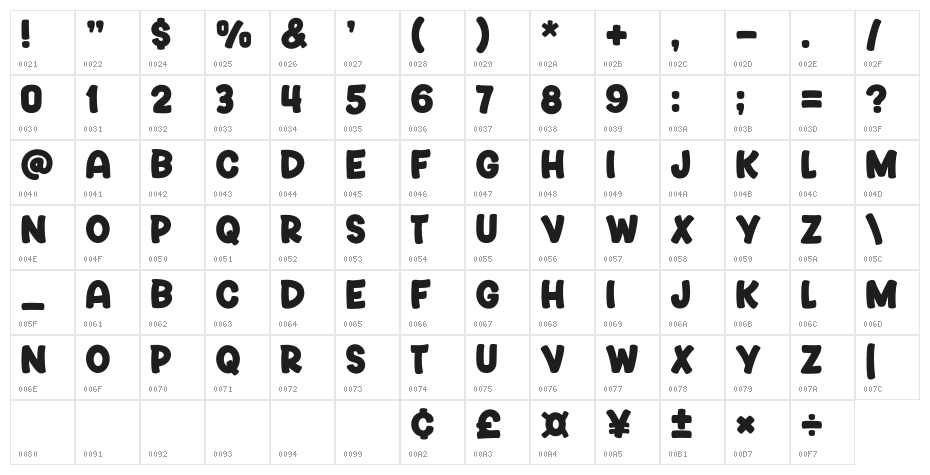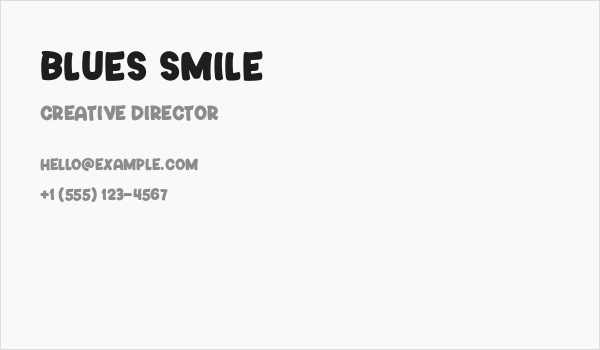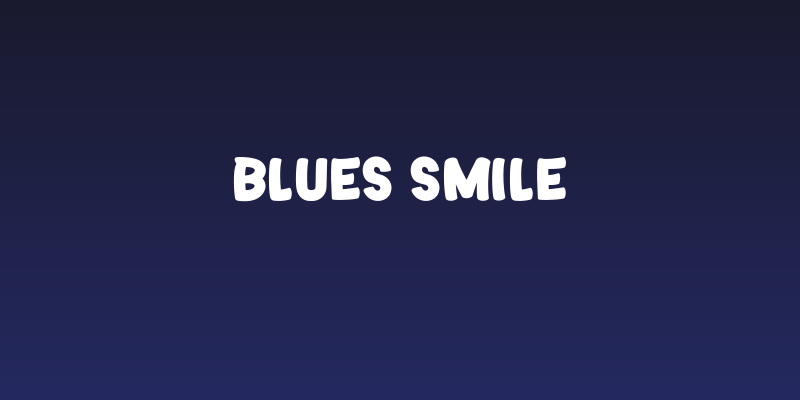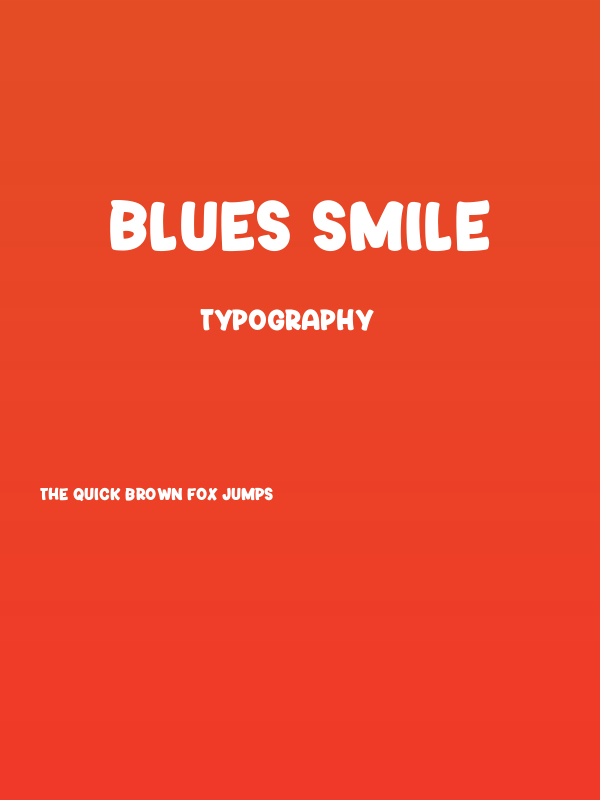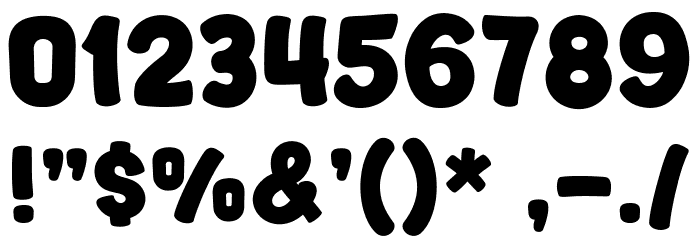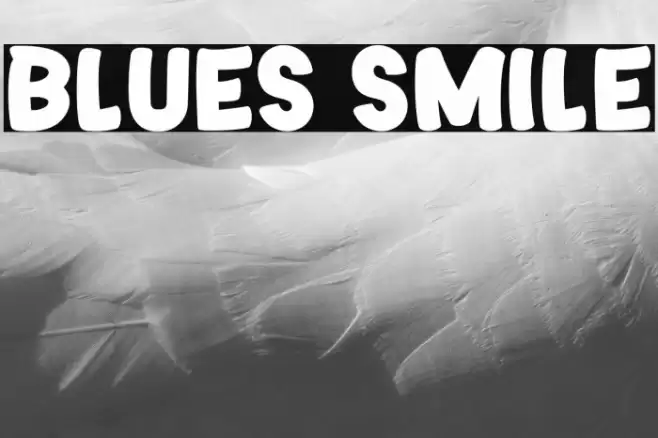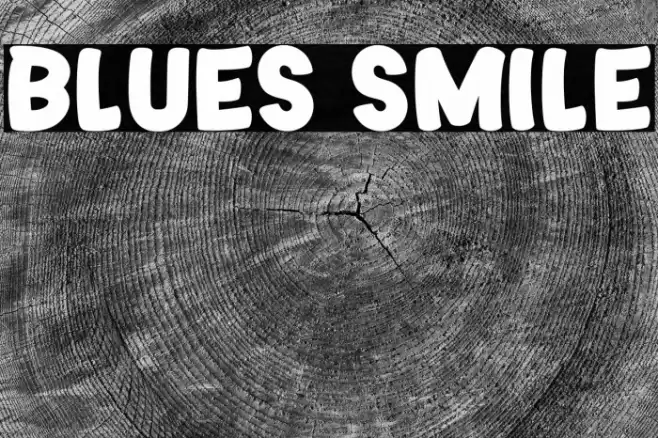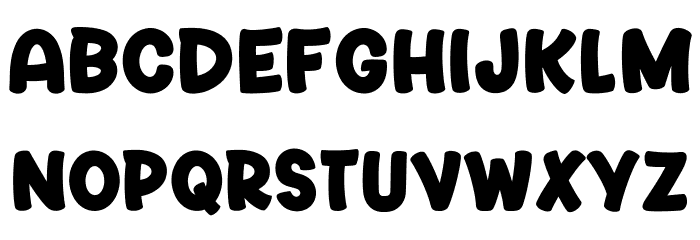
Blues Smile Font
Blues Smile Description
This font features bold, rounded characters with a playful and friendly appearance. The letters are thick and have a uniform stroke width, giving them a strong presence on the page. The rounded edges and slightly irregular shapes add a whimsical touch, making it ideal for designs that aim to convey warmth and approachability. The numbers and special characters maintain the same playful style, ensuring consistency across all text elements. This font is particularly suited for projects that require a fun and engaging visual style.
| Overall Style | Playful |
| Proposed Projects | Ideal for children's books, playful branding, casual invitations, and fun posters. |